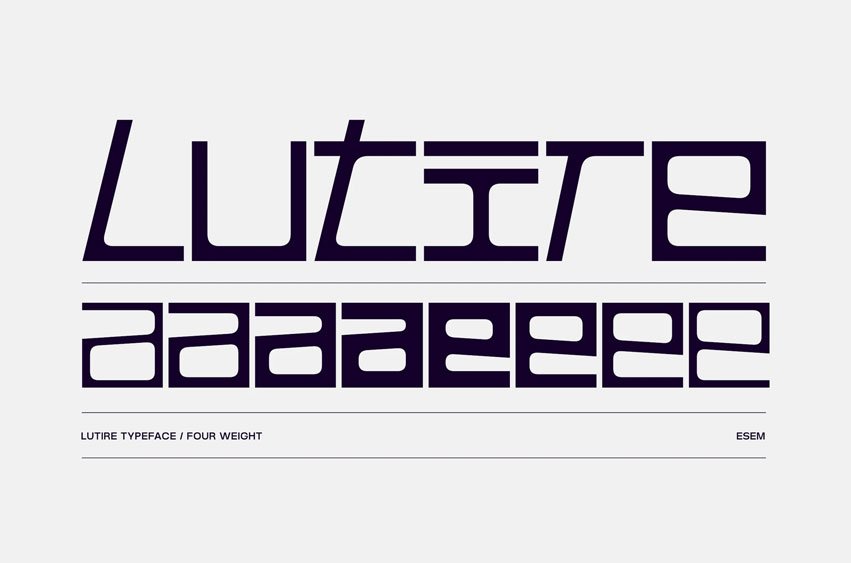
Lutire Font is a modern display typeface inspired by futuristic aesthetics and technological precision. It features sharp edges, geometric forms, and distinctive cut-outs that give it a dynamic and innovative character.
A unique detail of the typeface is its rounded ink traps, which subtly contrast with the angular structure of the letters, adding refinement and a distinctive visual identity. It works perfectly in technology, sci-fi, branding, posters, UI, and visual identity projects where a bold, modern look is essential. With four weights, it offers flexibility across different uses — from striking headlines to strong typographic accents.